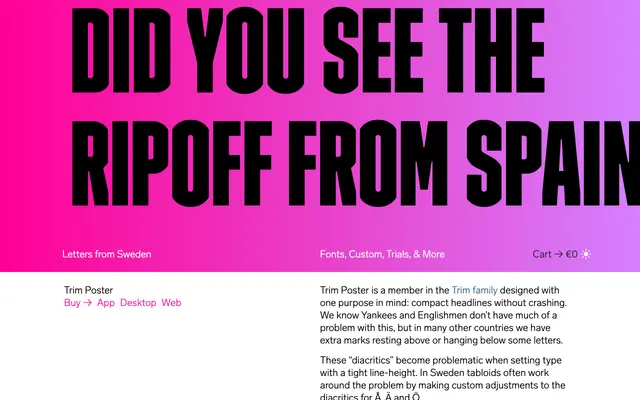
Trim Poster
A slender display family by Göran Söderström engineered for tight headline setting with diacritics, spanning eight widths from Skinny to Fat.
Designed specifically to solve the problem of diacritical marks crashing into neighbouring lines at tight leading, Trim Poster offers two stylistic sets for diacritic variants so Scandinavian characters like Å, Ä and Ö can be set without manual adjustment. Eight widths run from Skinny to Fat with a variable version included in the complete family licence. Updated in 2016 to add lowercase glyphs, making it workable across a broader range of headline applications.
An extremely narrow display typeface designed specifically for compact headline setting with diacritics in mind, spanning multiple extreme width variants from Skinny to Fat. Its primary function is display and poster use rather than text setting.